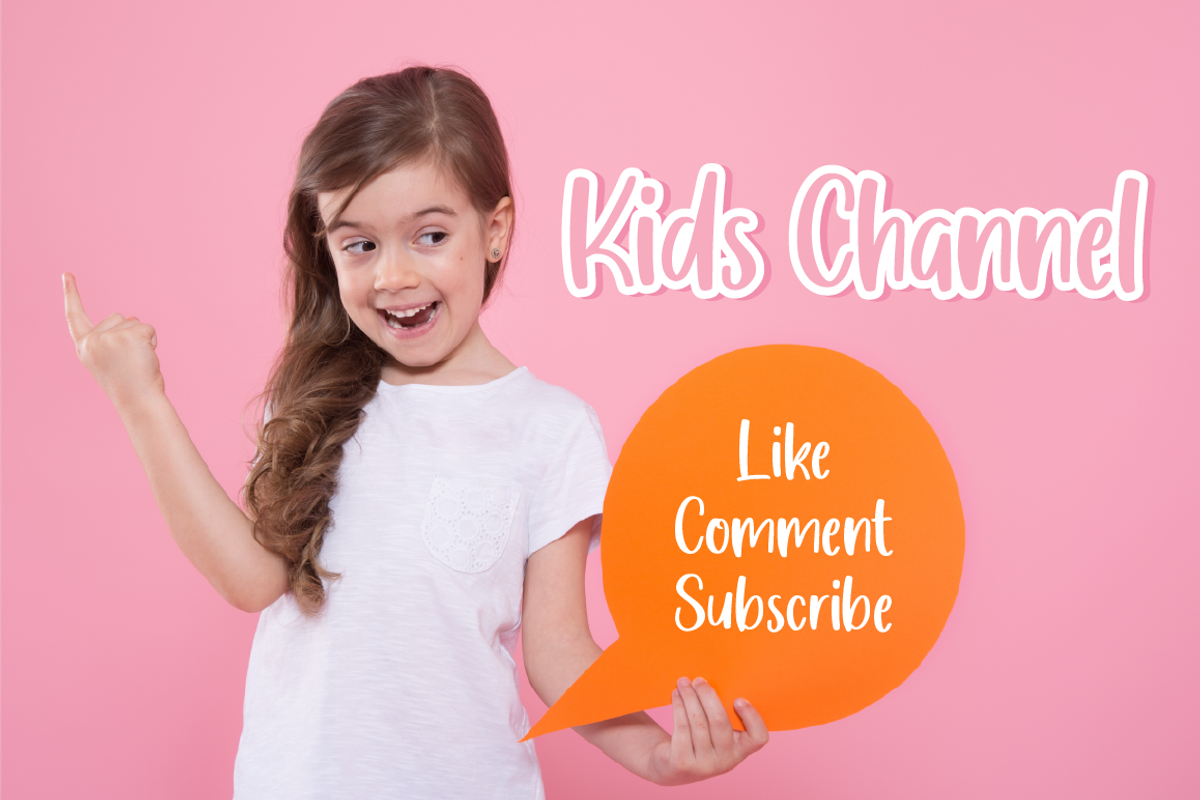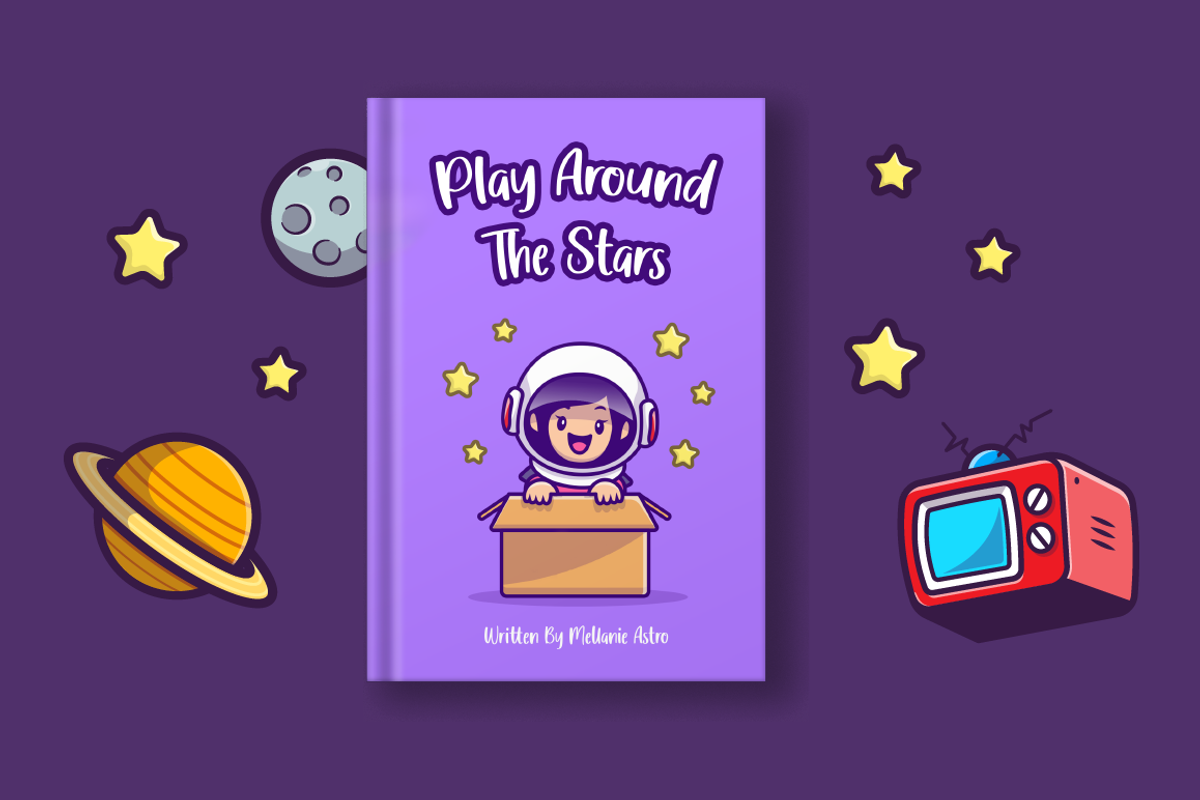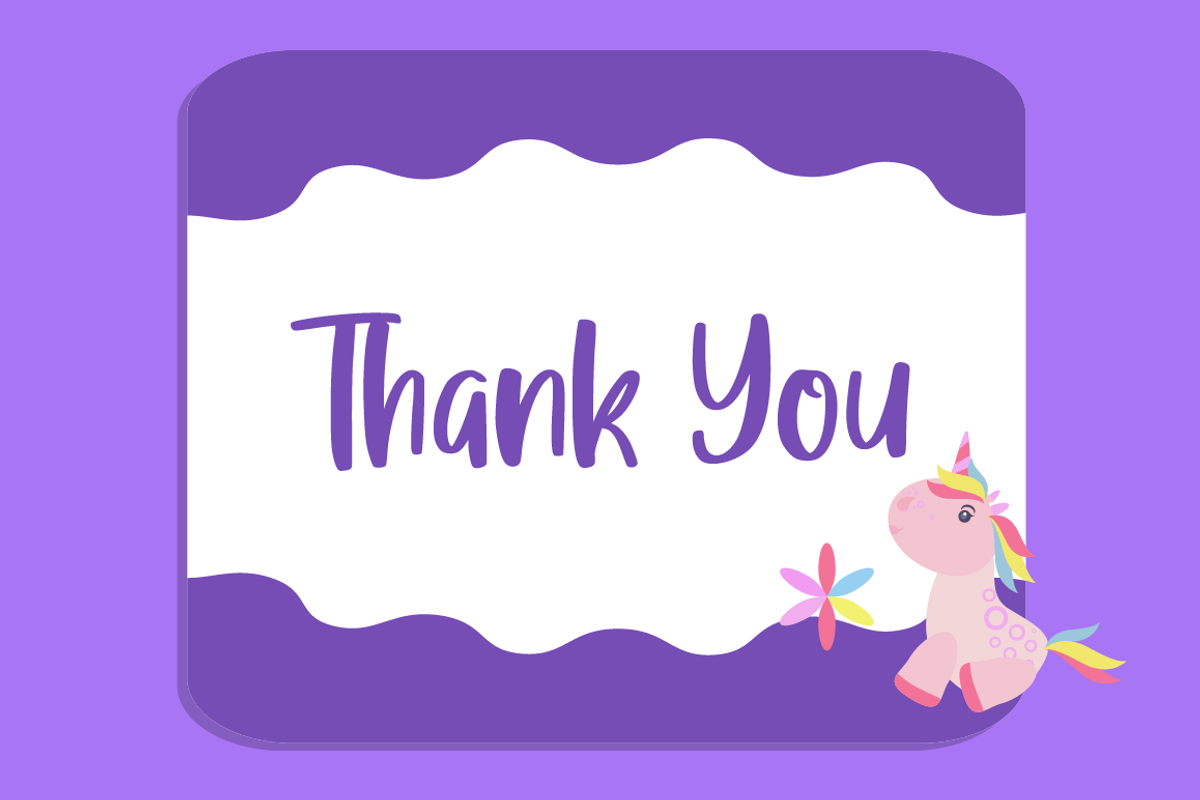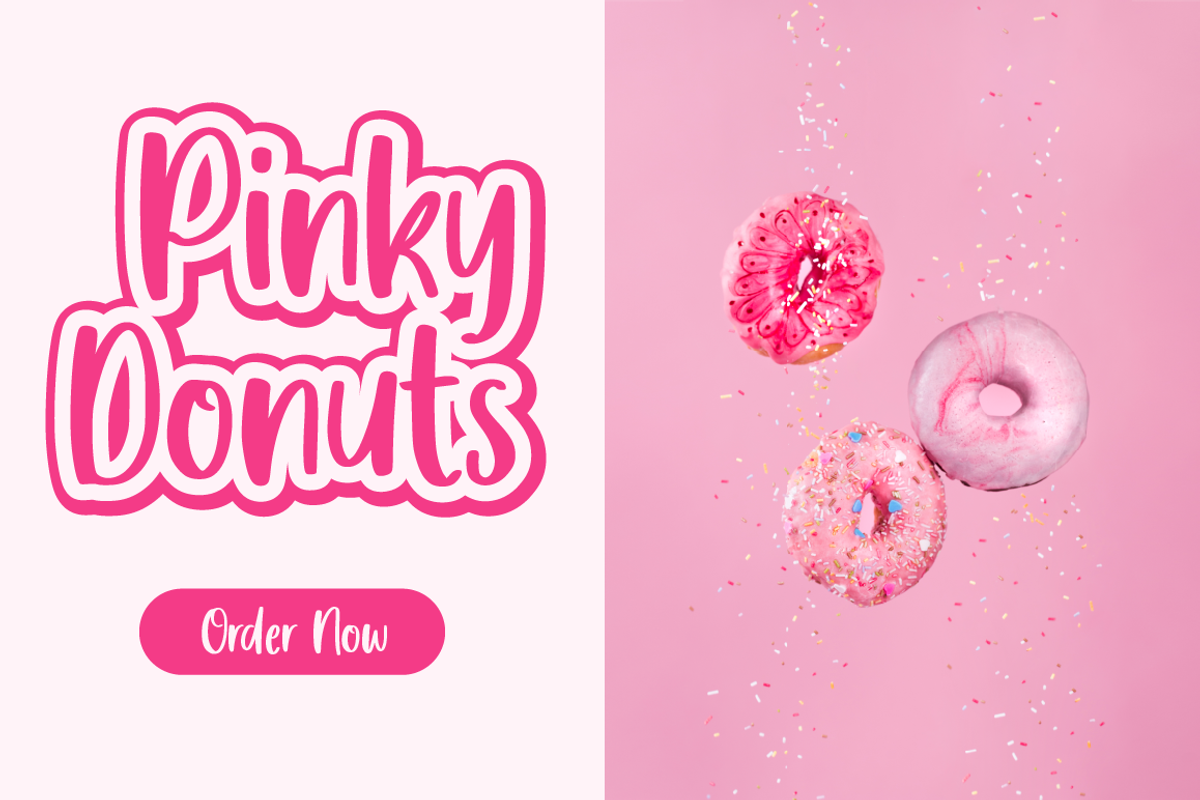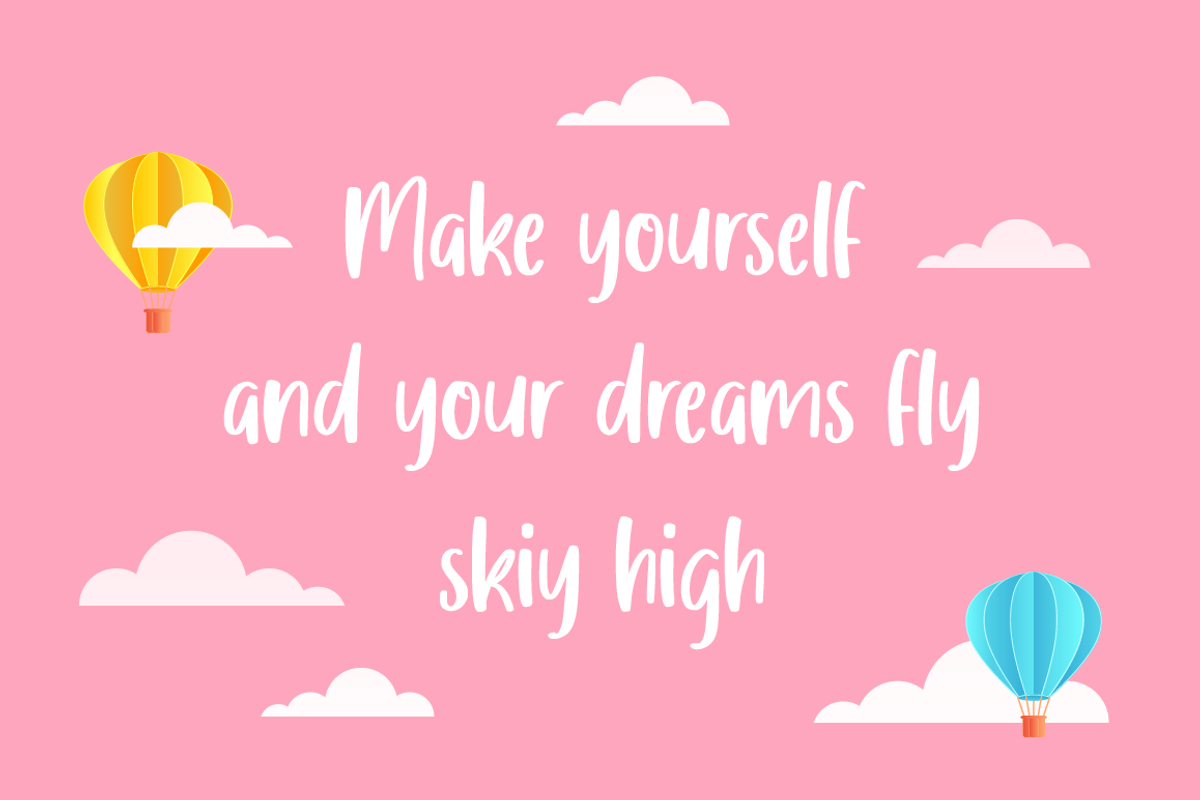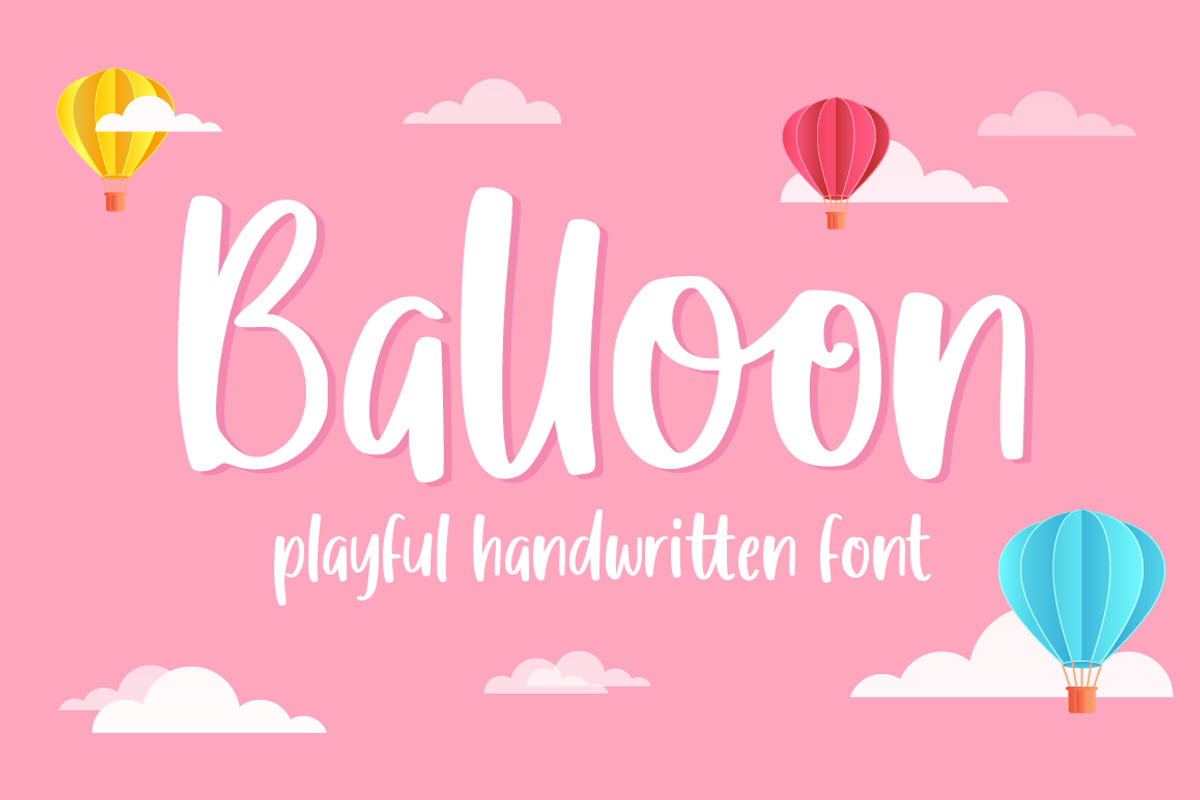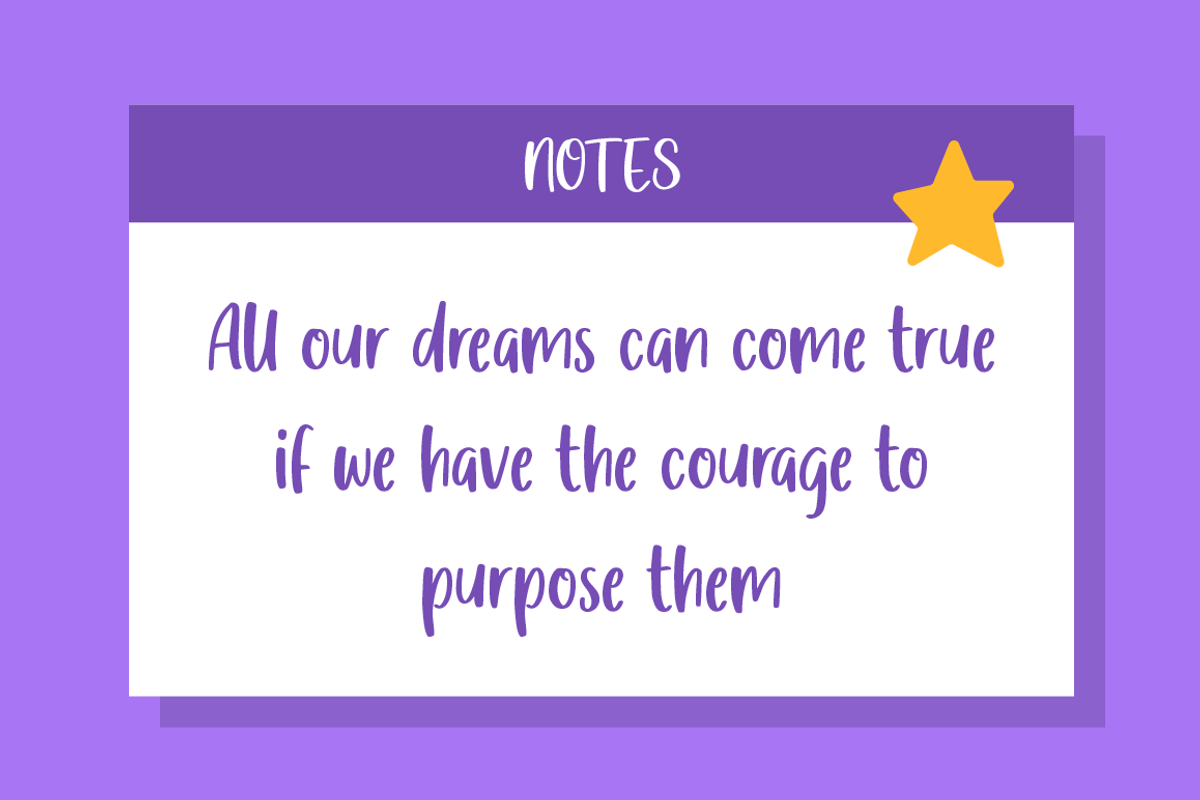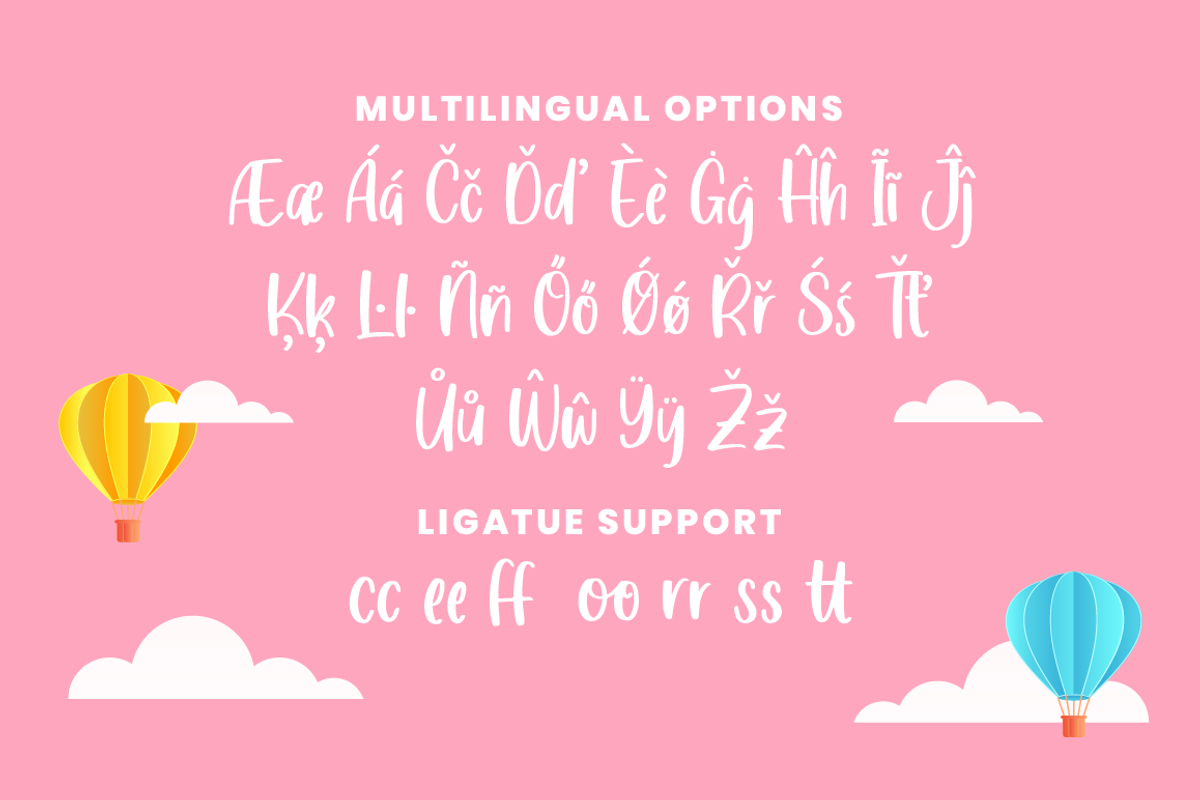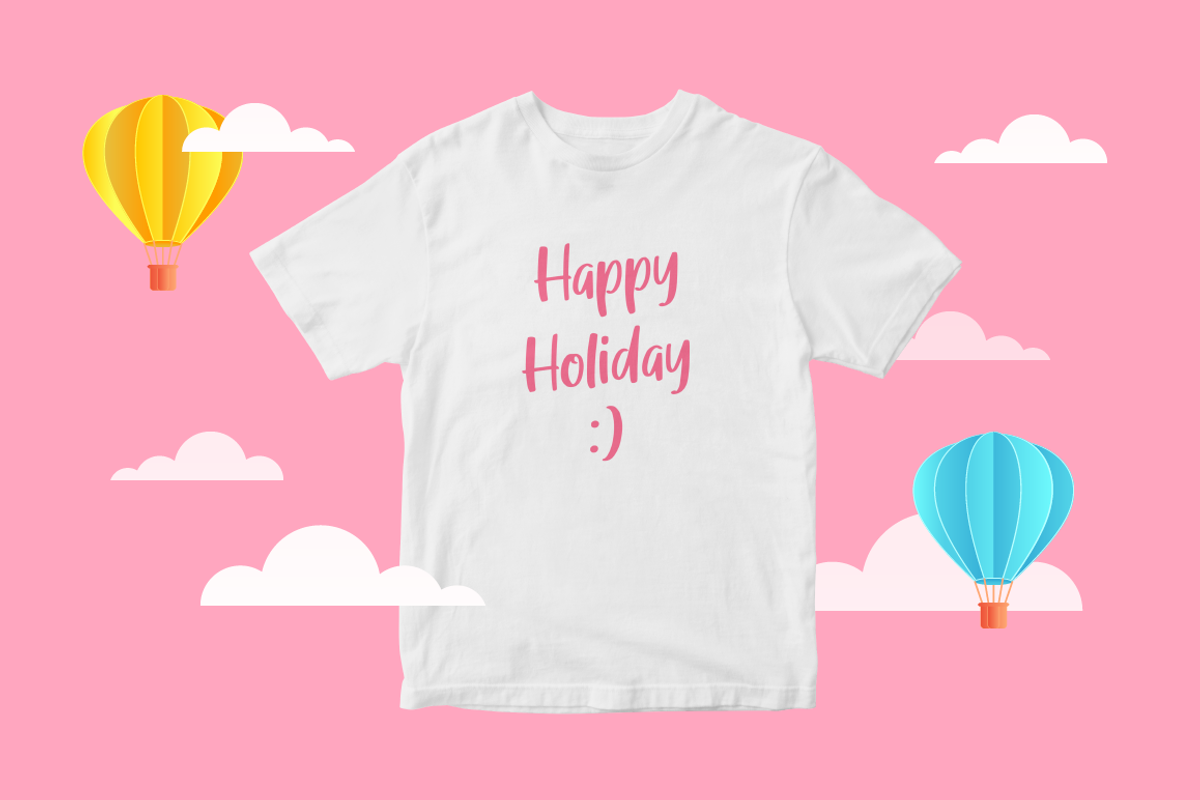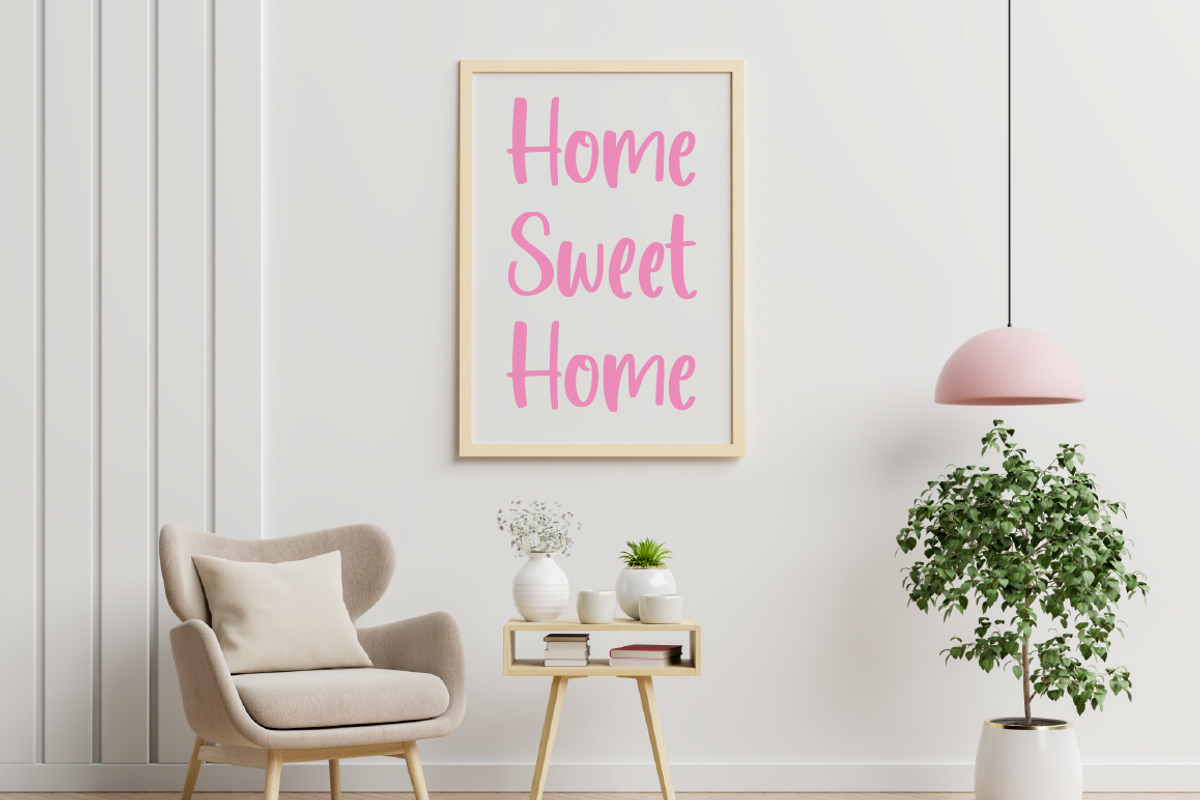
Balloon Playful Handwritten Font
Balloon is a cute and playful display font. It will add an incredibly joyful touch to your designs. Add this beautiful display font to each of your creative ideas and notice how it makes them stand out!